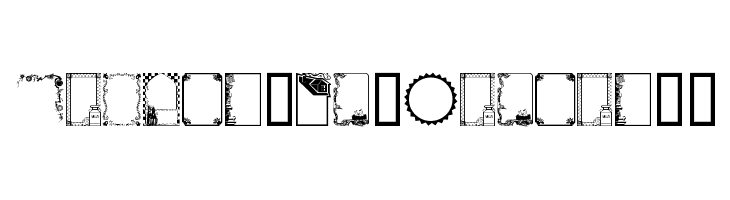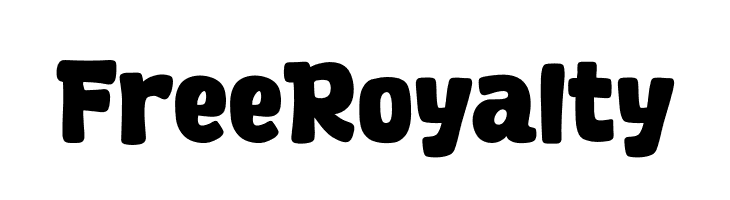
A playful, hand-drawn font with bold, rounded characters.
A bold, monospaced outline font with a modern, technical style.
Elegant handwritten script font.
A bold, rounded font with a modern and impactful style.
A pixelated, monospaced font with a retro, digital aesthetic.
A playful, handwritten font with smooth, flowing lines and a casual style.
A playful, hand-drawn font with tall, narrow letters and a whimsical style.
Playful and bold font with rounded edges.
A bold, flowing script font with interconnected, rounded letters.
设计师偏爱 sooper, Howdy Frog, TaurusMonoOutline-Bold, Renatha Signature and Cameliaexbold,因为其造型干净、适用范围广—— 从品牌识别到落地页、海报都能胜任。